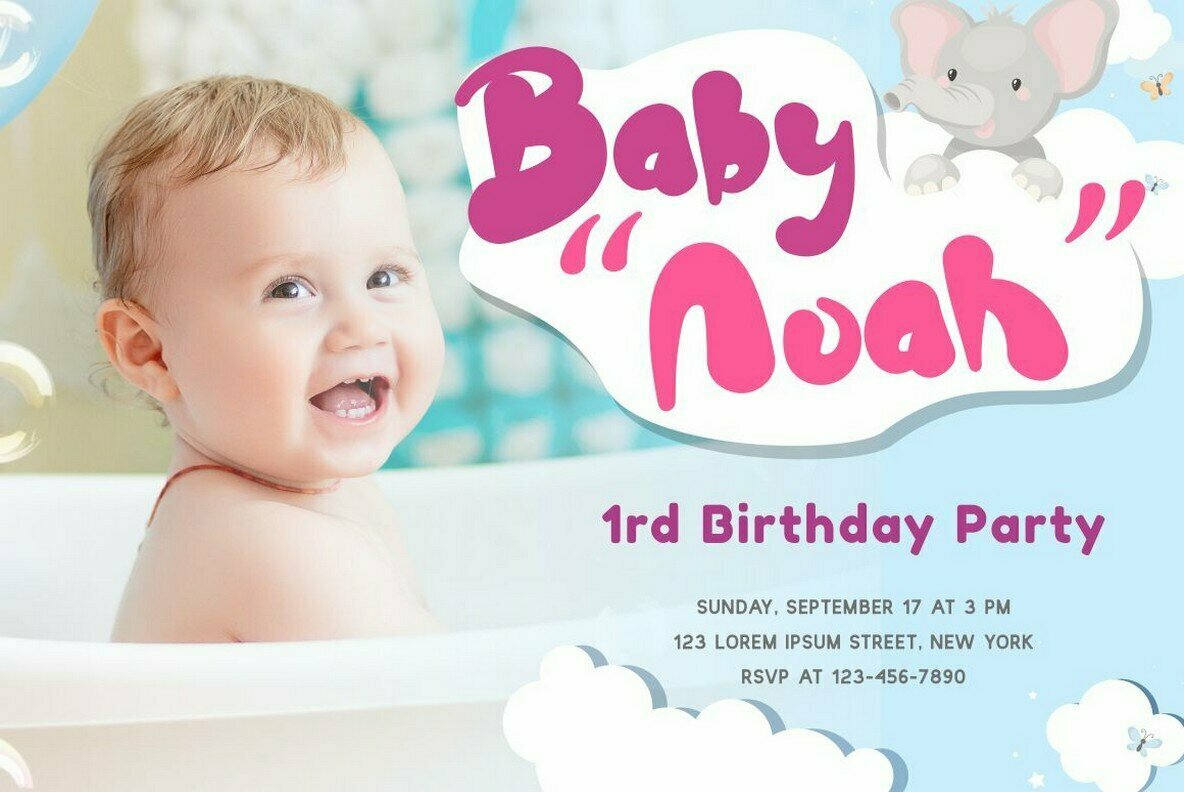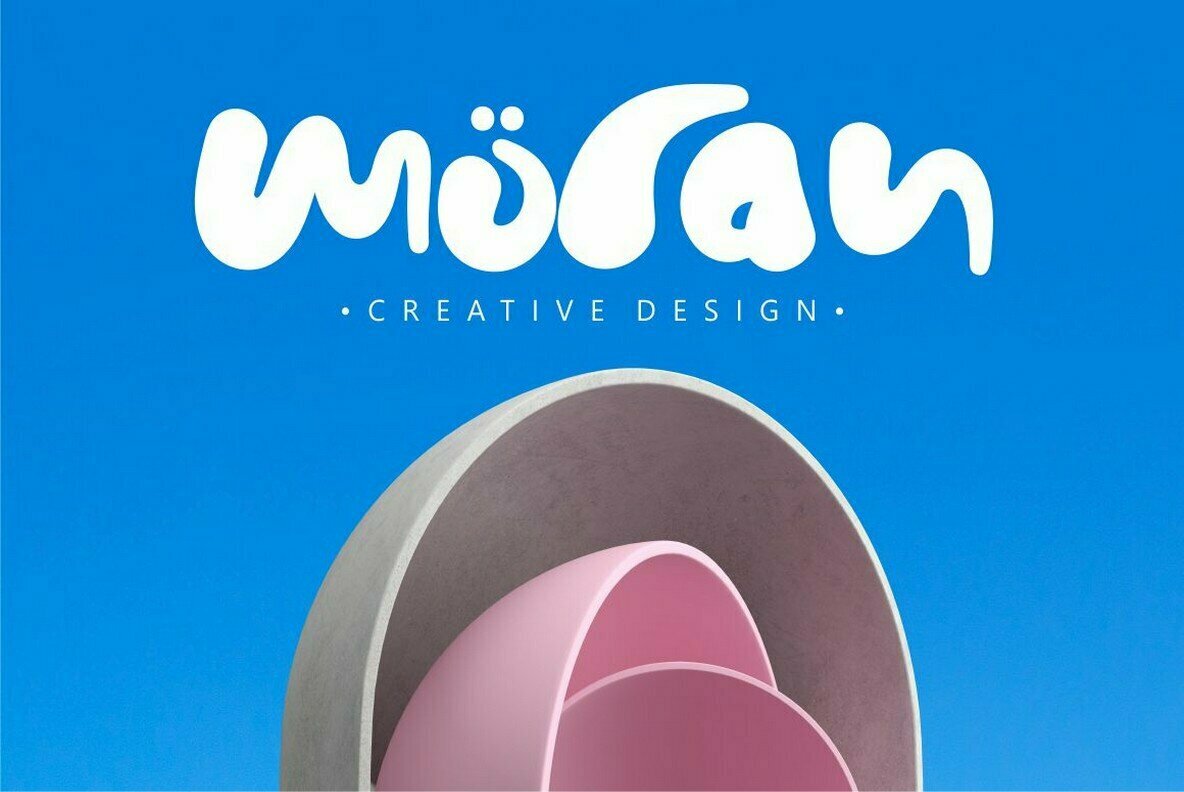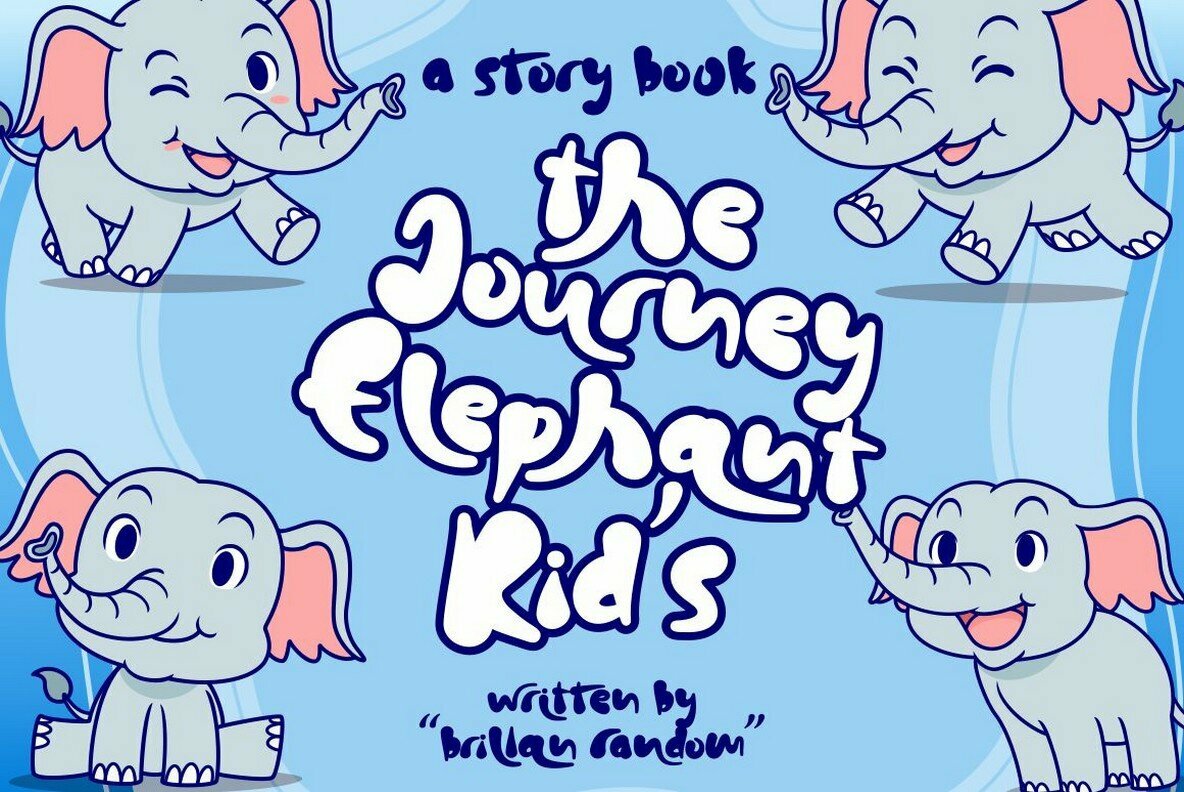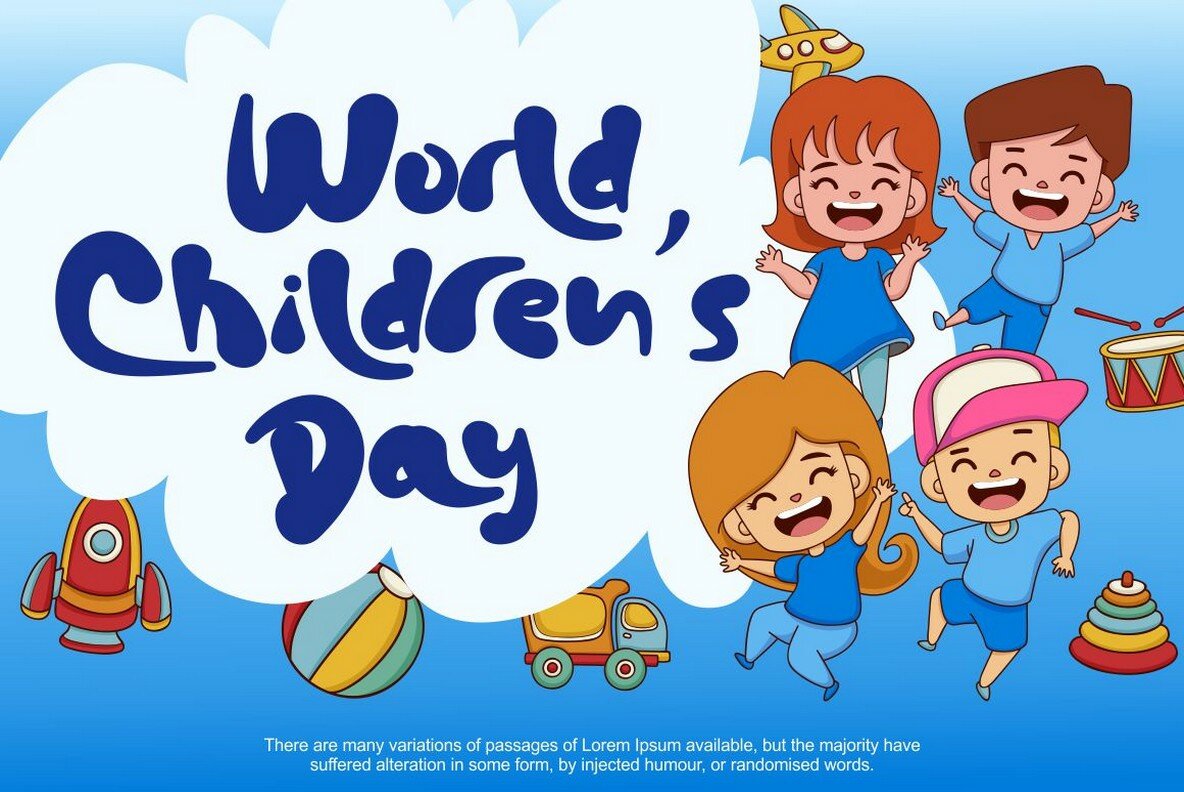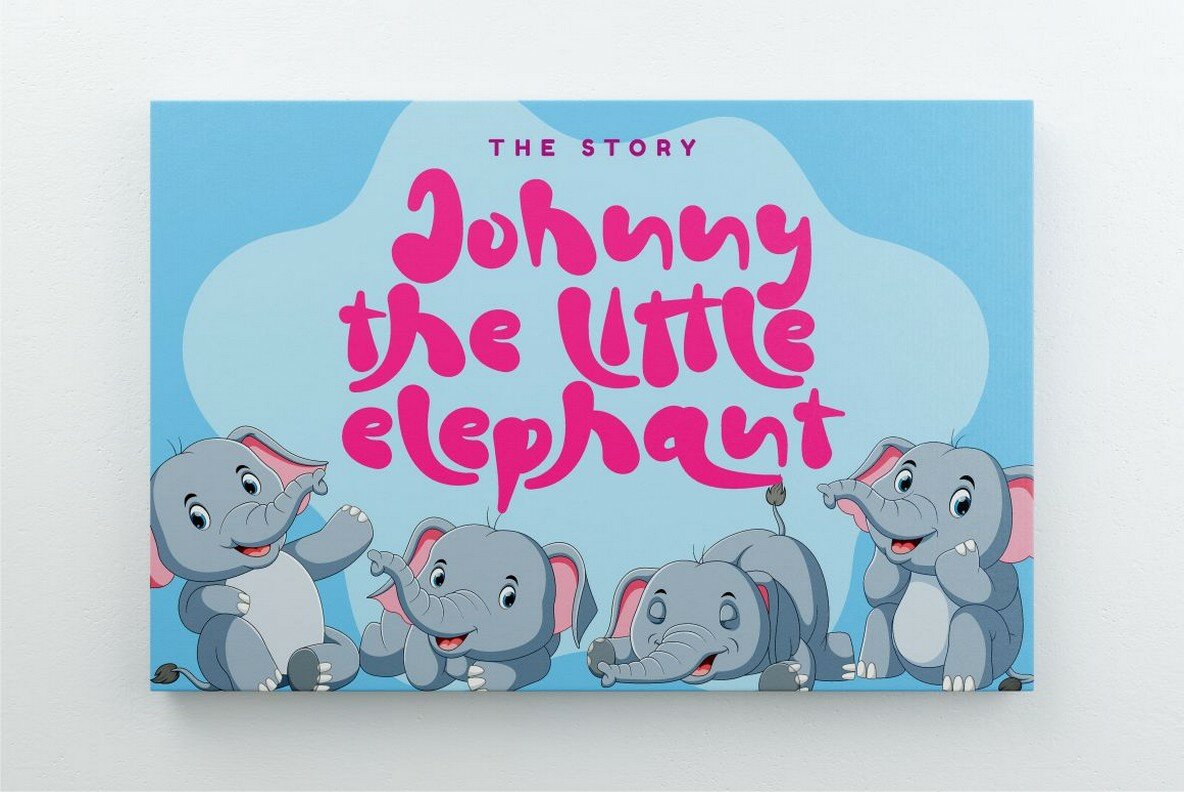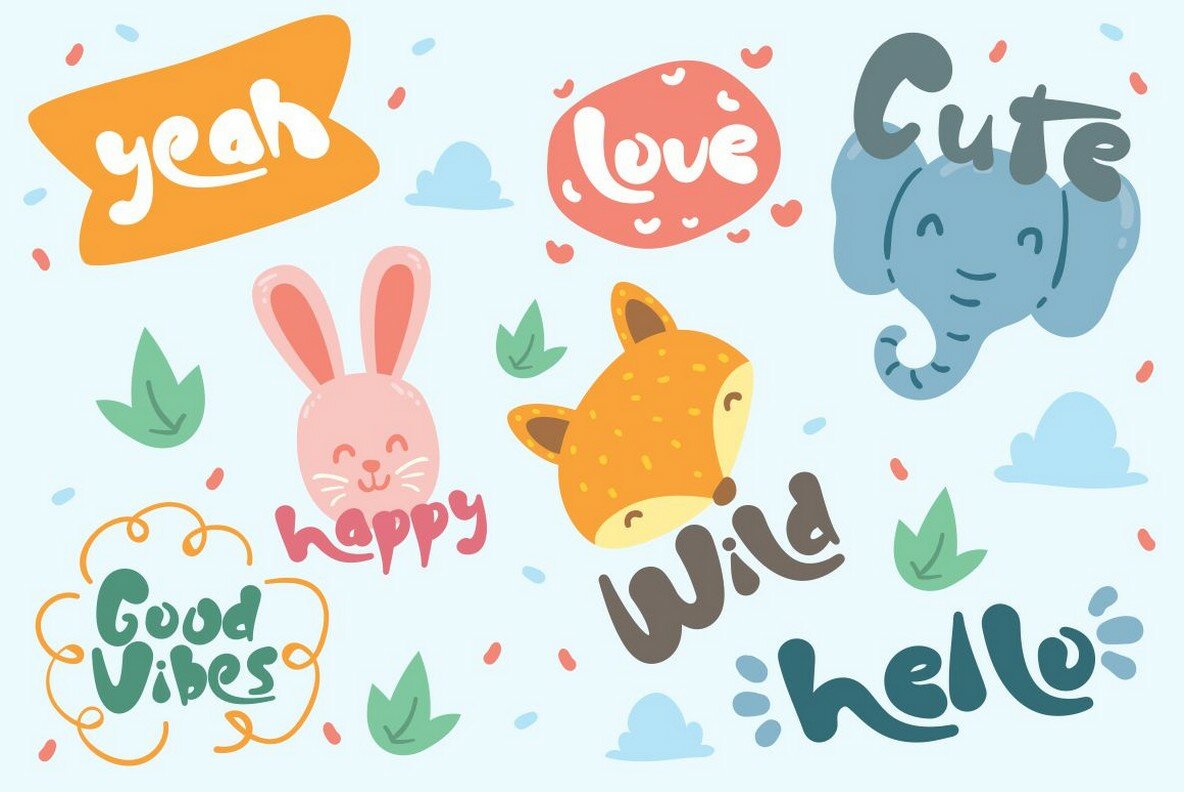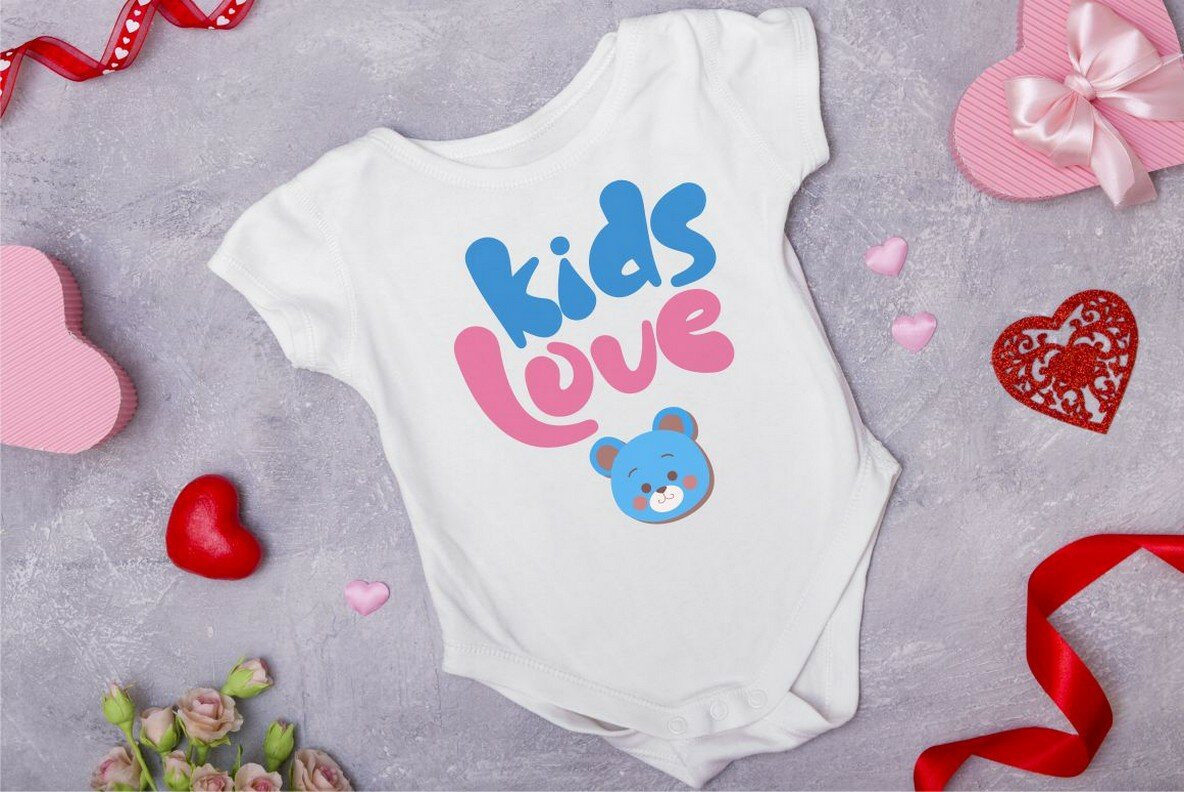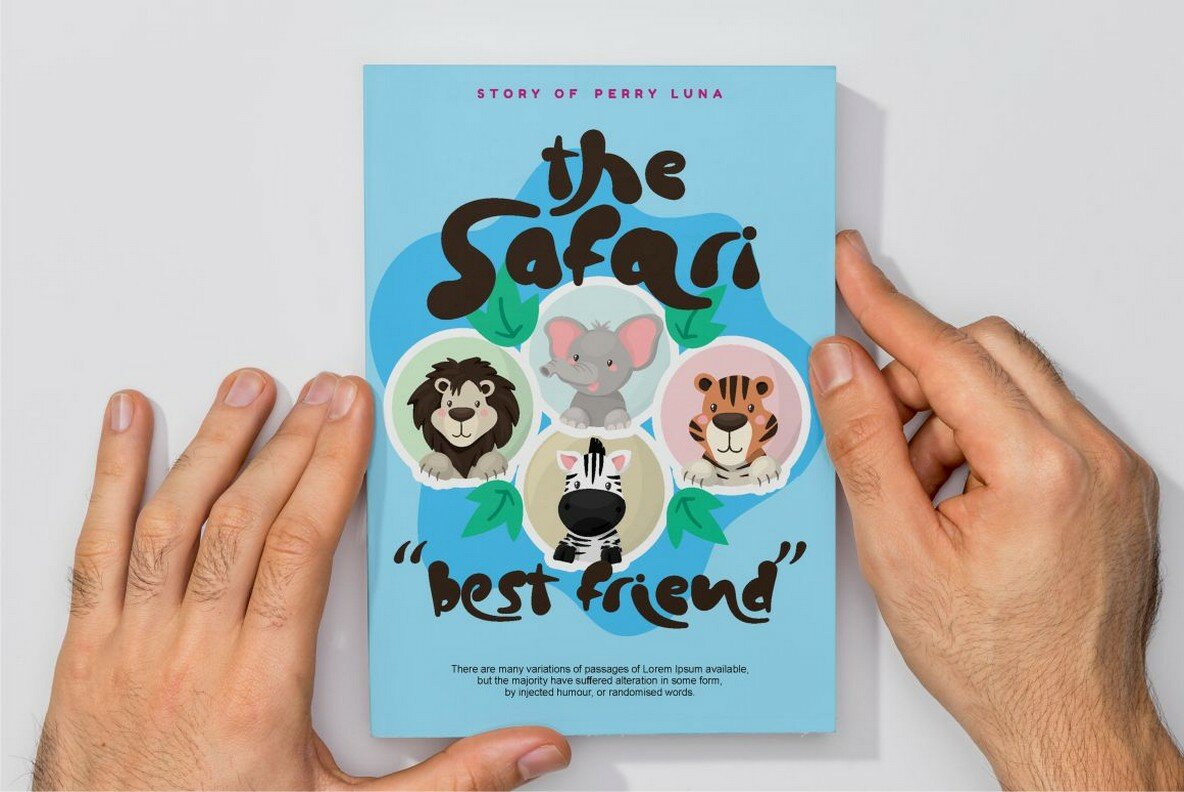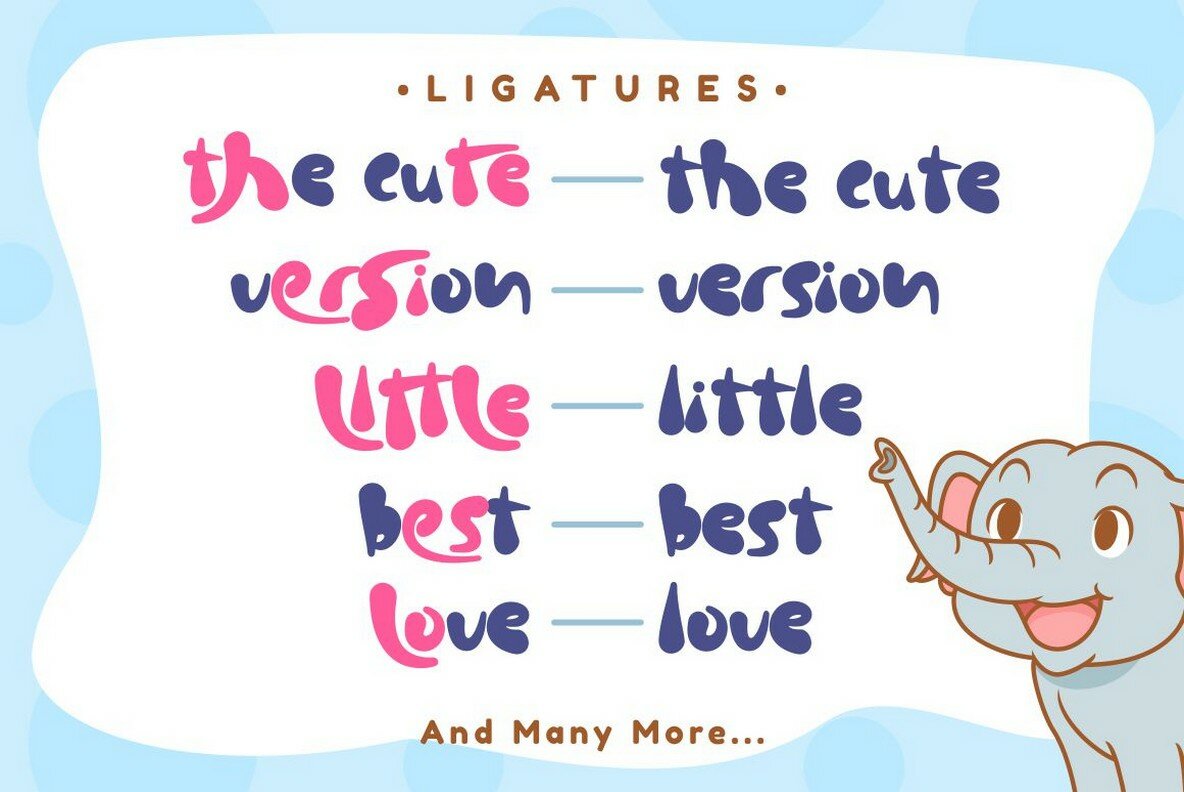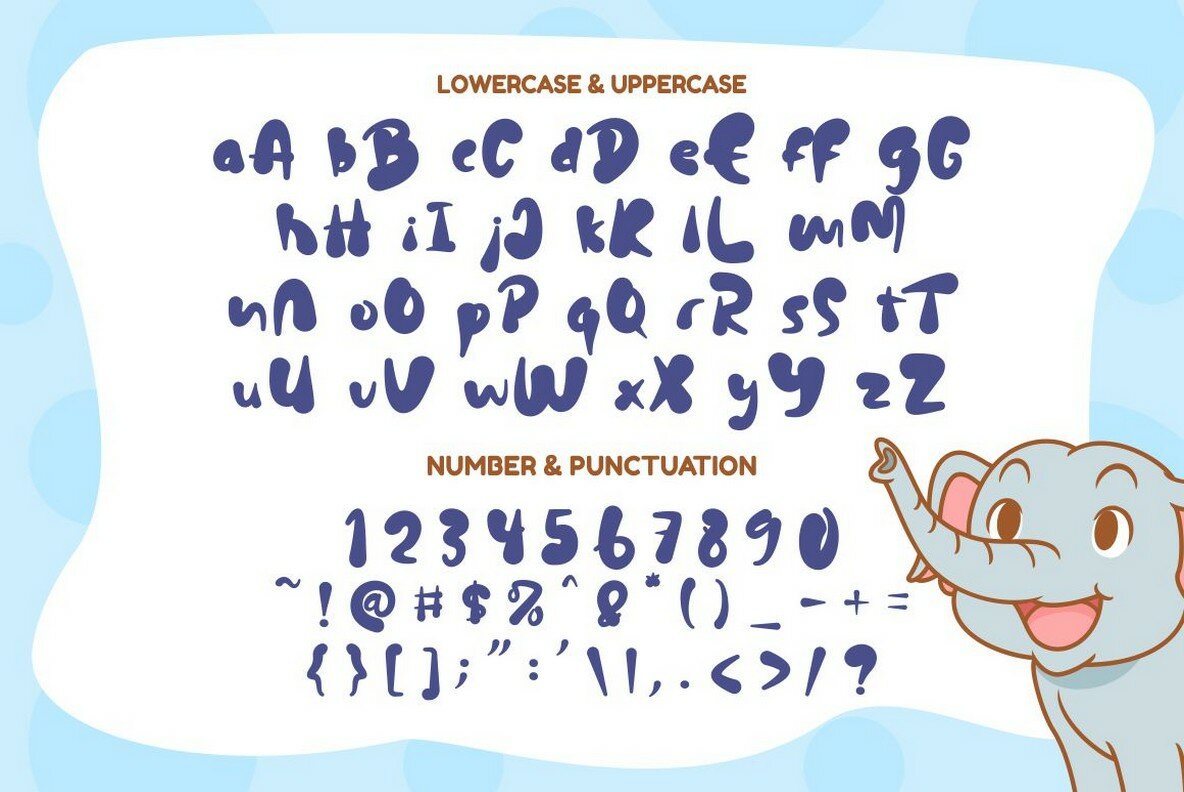
Chubby Elephant Font
Chubby Elephant
Chubby Elephant is an exuberant typeface designed to bring a touch of whimsy to childhood-related projects. Its bold, playful character makes it an ideal choice for children's books, illustrations, comic strips, t-shirts, posters, greeting cards, and more. Every letter bursts with personality, ensuring your designs leap off the page and captivate young audiences. Compatible with both MAC OS and Windows OS, and functional in Procreate and Cricut applications, Chubby Elephant accommodates your creative setup seamlessly. This typeface is your go-to for crafting a playful, yet professional look in any child-oriented design.Chubby Elephant: A Bold, Playful Display Font
Features of Chubby Elephant